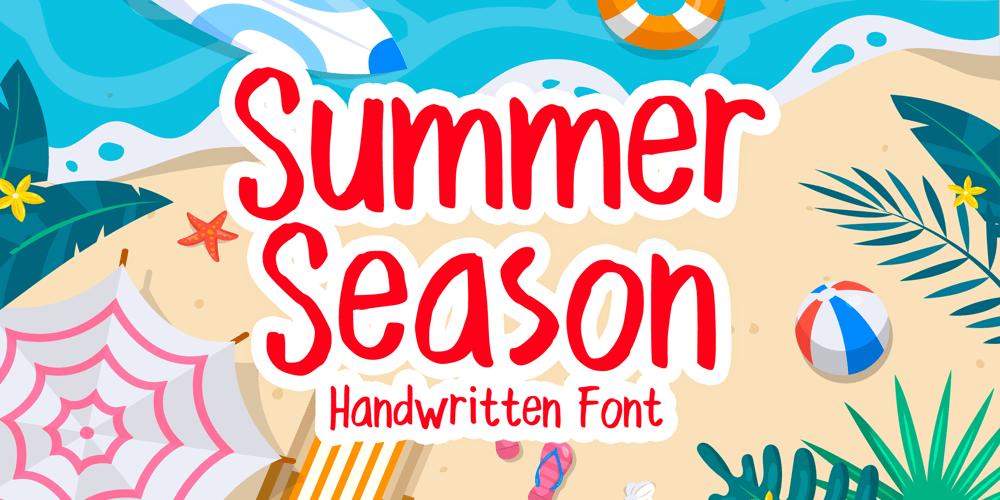
Summer Season Font Family was designed by Gabriel Valentinus and published by Mvmet. Summer Season contains 1 styles and family package options. Summer Season is a fun and playful handwritten font. You can use it for anything ranging from t-shirts and clothing, for your book designs, summer party needs, greeting cards, stickers, posters, banners, or anything that needs a happy and fun touch. Try it to create fabulous designs and feel the fun and cheering vibes with it!